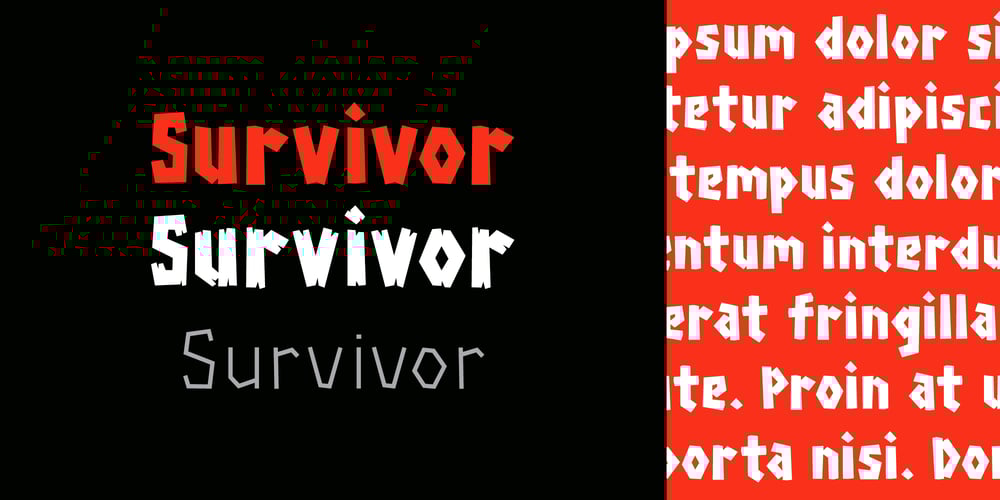
Survivor Font Family was designed by Thomas Ramey and published by Thomas Ramey Design. Survivor contains 17 styles and family package options. “Survivor” is a dynamic font family that captures the spirited ambiance of your favorite tiki bar and the tropical essence of an island getaway. Inspired by rugged terrains, bold adventures, and legendary castaways, it embodies a sense of leisure and excitement, all while maintaining a sophisticated, modern appeal.The primary font boasts crisp lines and elegant curves, embodying a contemporary style that is both adaptable and legible. Complemented by a range of weights designed for extensive text, it ensures readability while maintaining a cohesive aesthetic.Infused with motifs from island life and ancient settings, “Survivor” adds a whimsical touch to your designs. One admirer described it as, “…It has its sandals on, 6 drink tickets in its pocket, and wants to have fun!”Whether used for headlines, branding, or promotional materials, this font family injects a sense of joy and exploration into your projects. With its array of weights and styles, “Survivor” offers versatility, allowing you to craft cohesive and captivating designs across different platforms. Let “Survivor” infuse your next design endeavor with a hint of tropical exuberance!